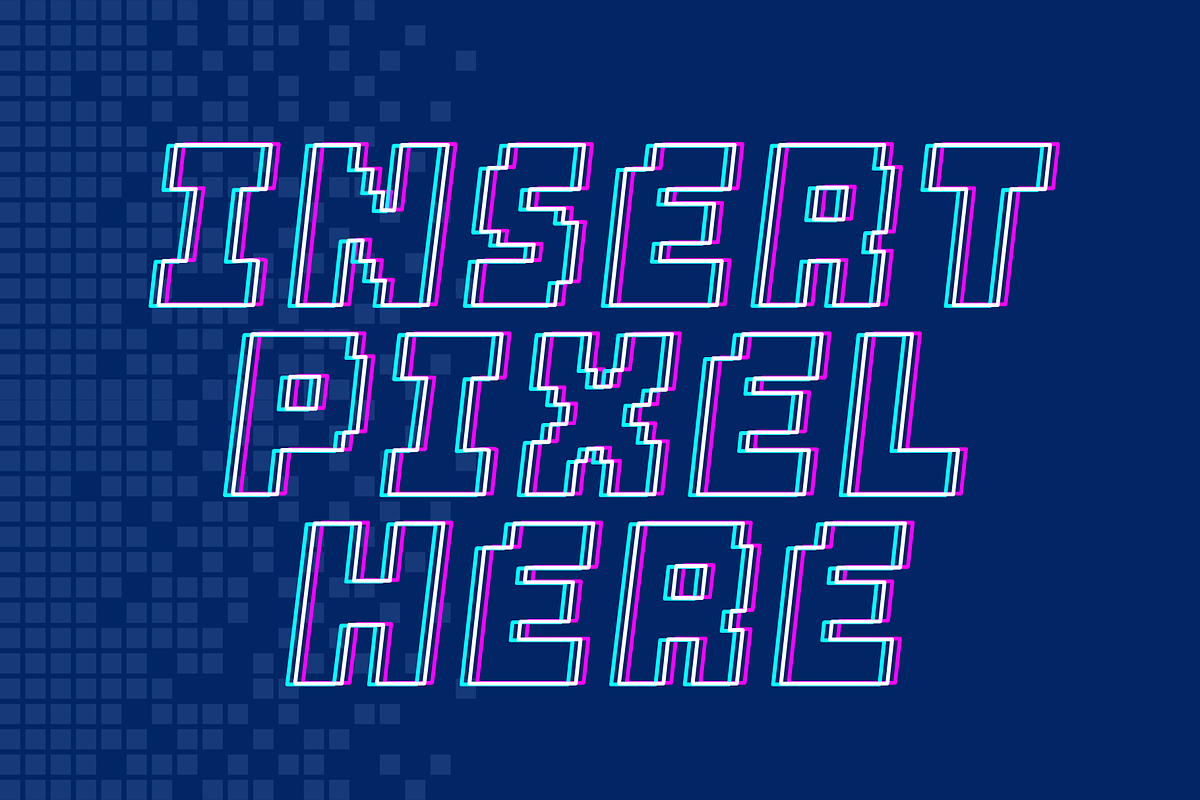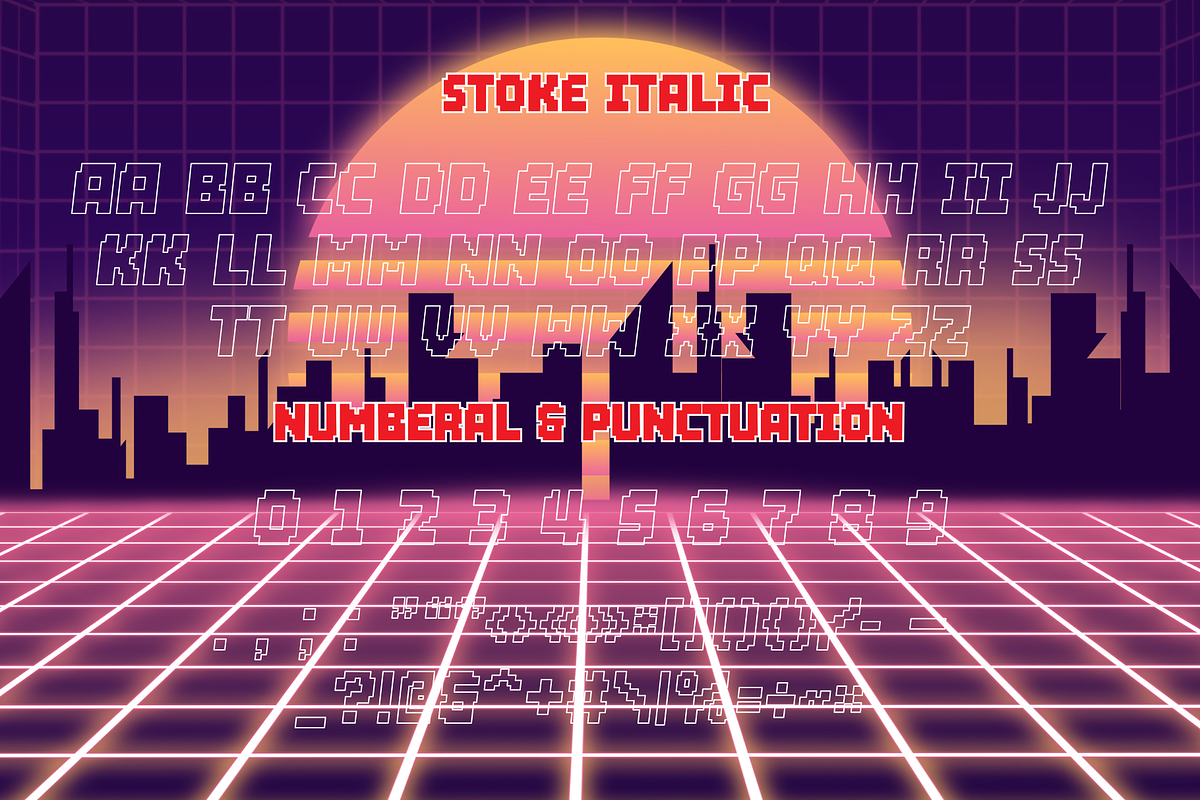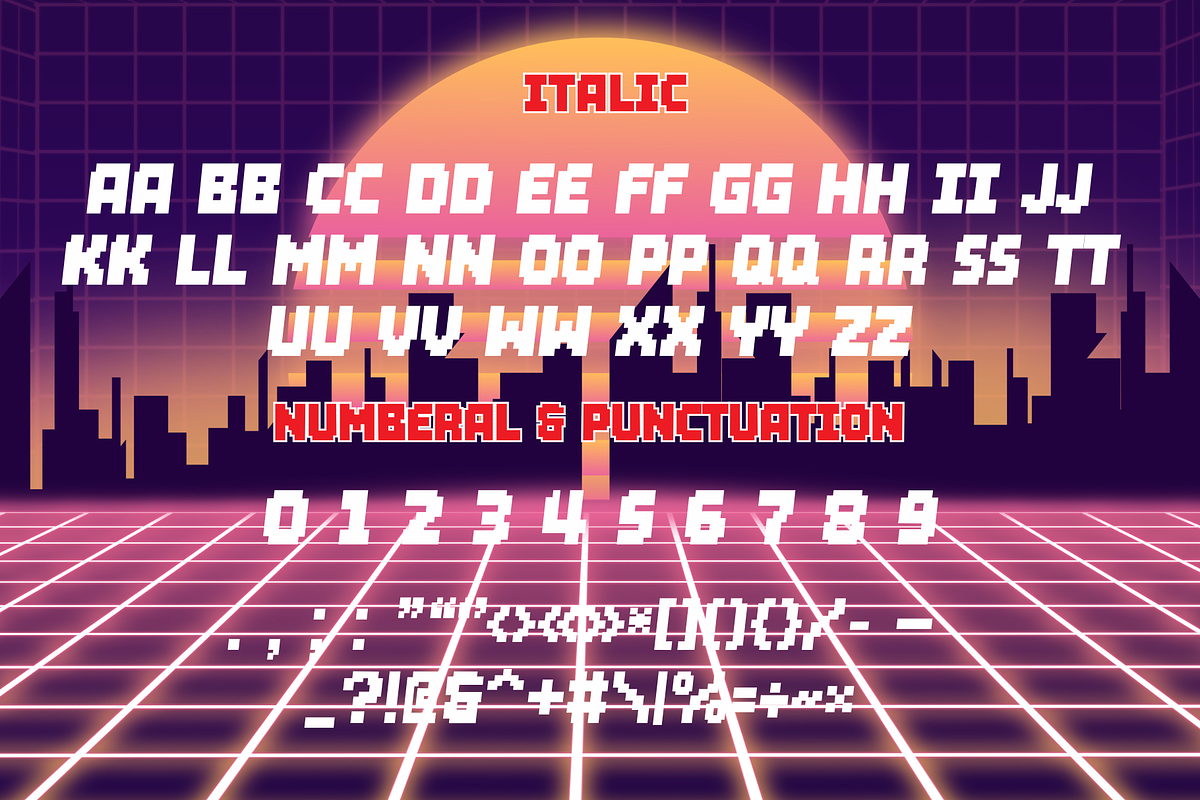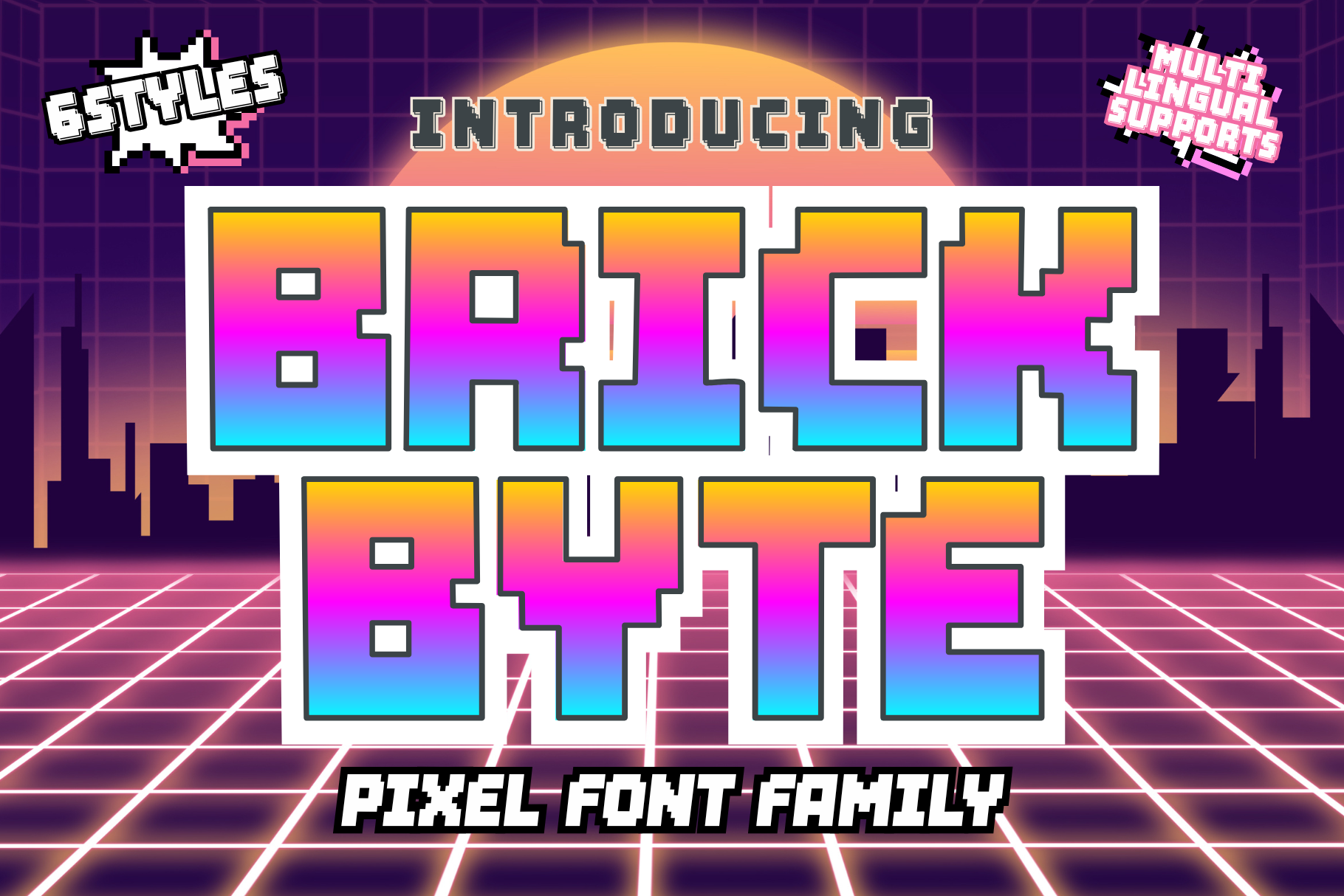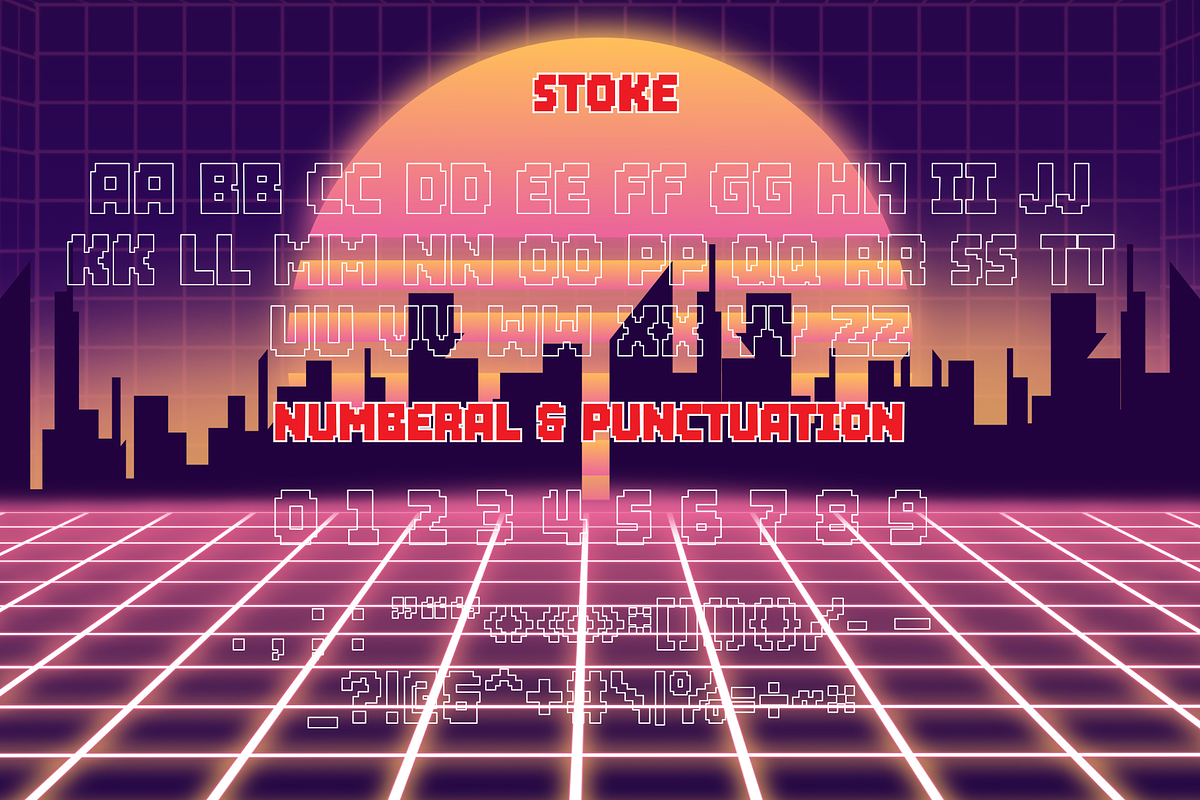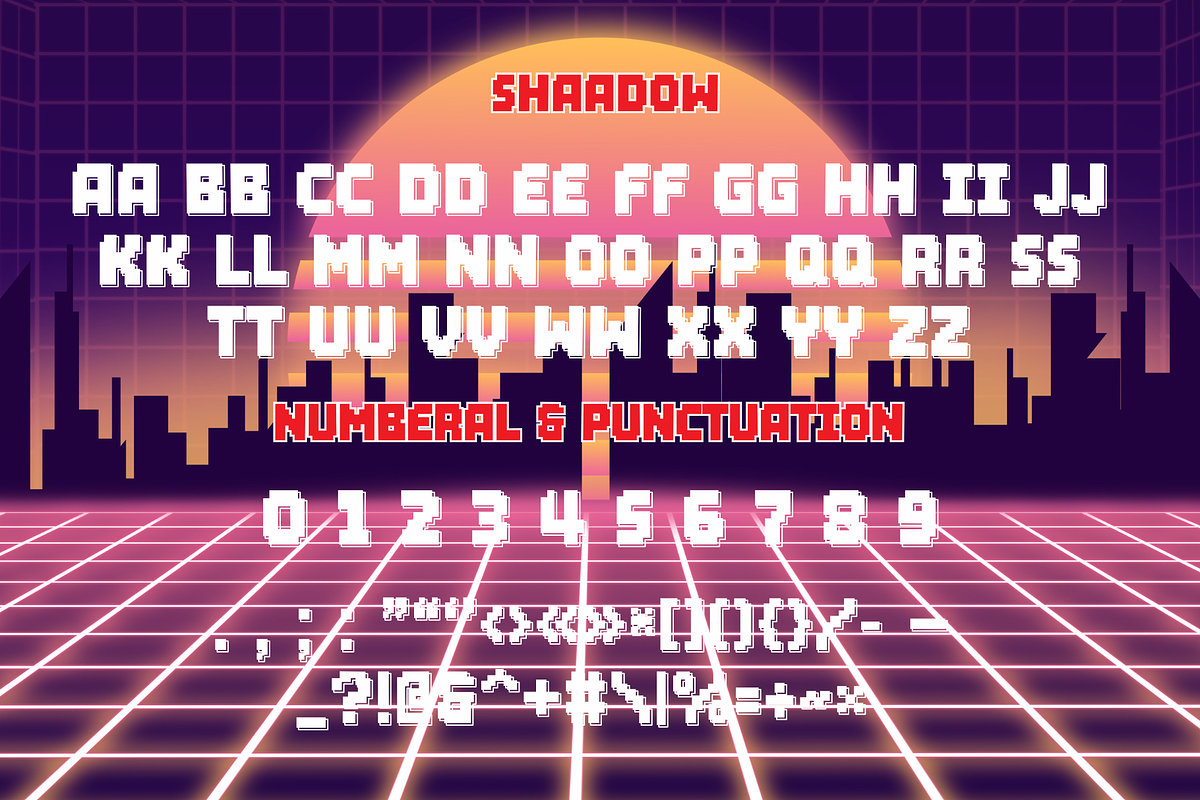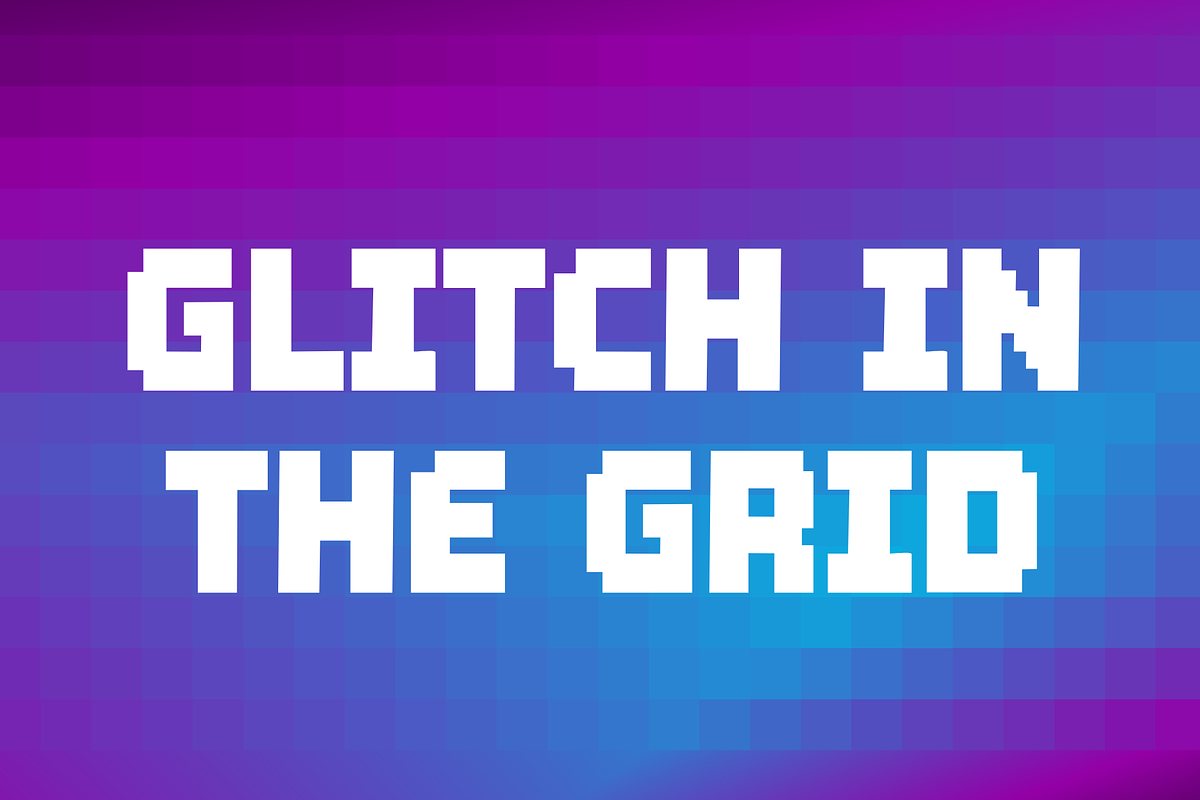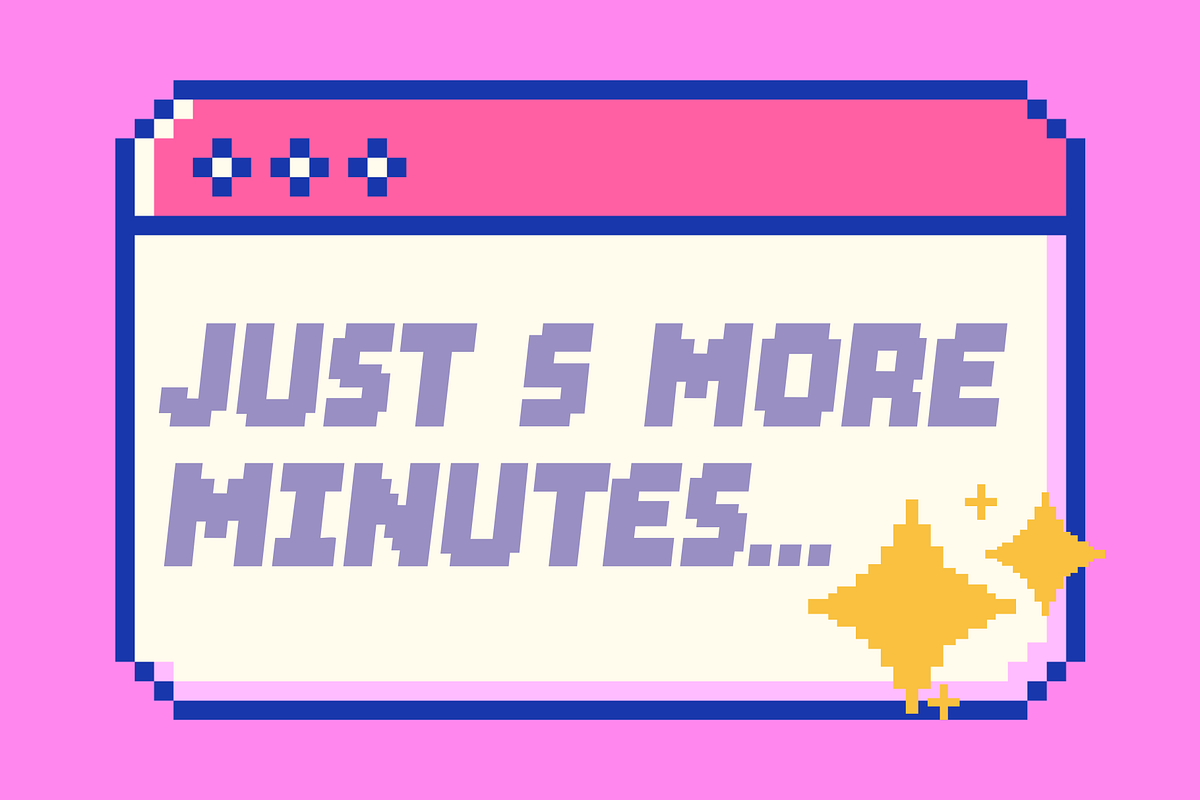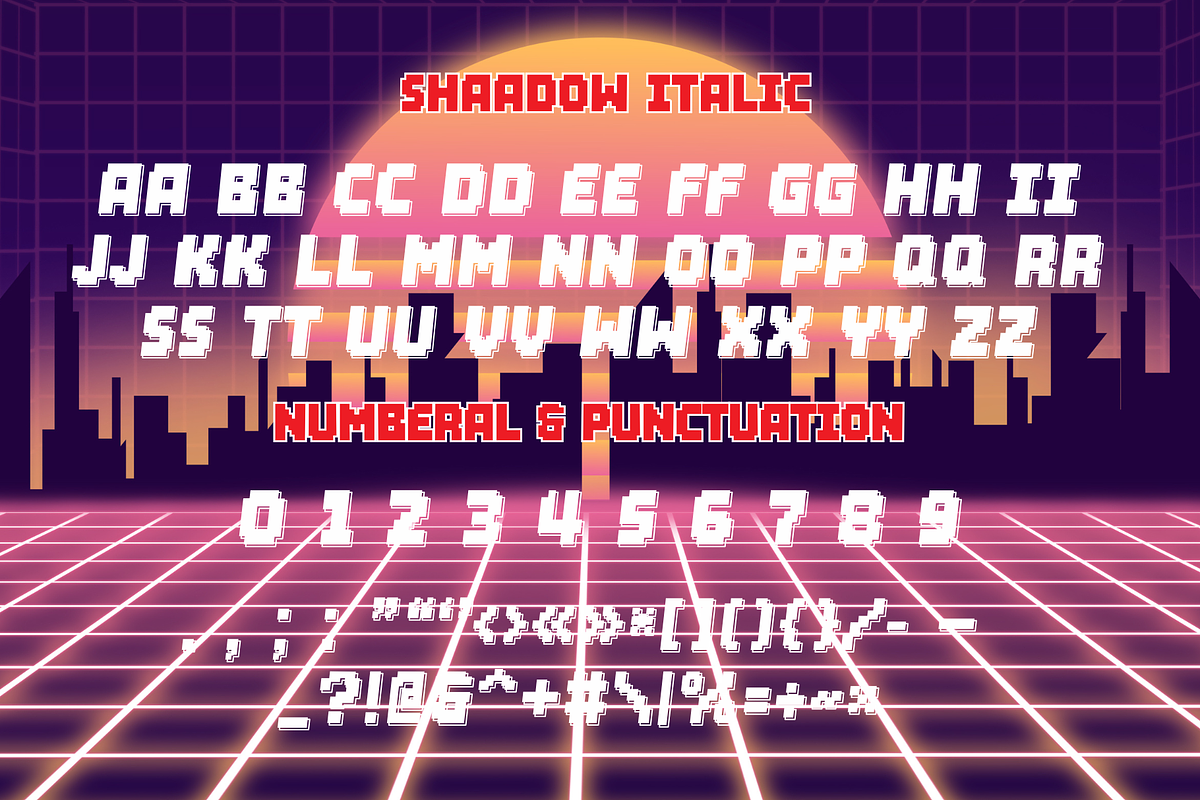
Brick Byte - square-cut display font
Brick Byte is a heavy, square-cut display font inspired by the aesthetics of voxel art and sandbox games. With chunky, brick-like characters and a pixel-perfect edge, this typeface brings a sense of structure, fun, and retro flair to any digital project. Whether you're crafting a game UI, designing titles for an 8-bit adventure, or building bold brand visuals, BrickByte delivers impact with every letter.